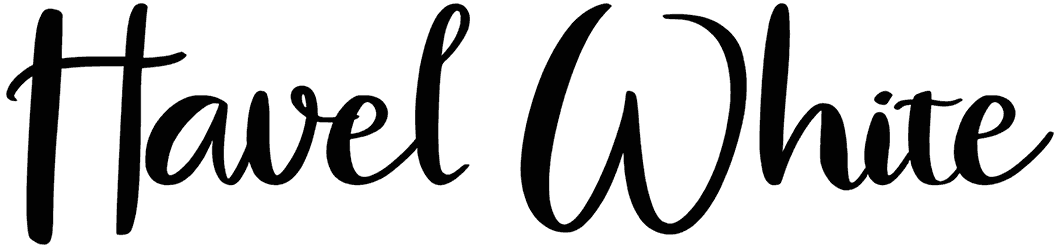
Havel White Font
Designed byNomlimofont
If you are looking for a well-designed script font, Havel White is an excellent choice. This modern font has a playful style and can be helpful in several situations.
You may use it in cases such as posters, flyers, magazine covers, and brochures. This font’s letters have soft edges with curly shapes, sending a friendly vibe. Besides, their thin extended tails seem memorable, so give it a try now without hesitation.